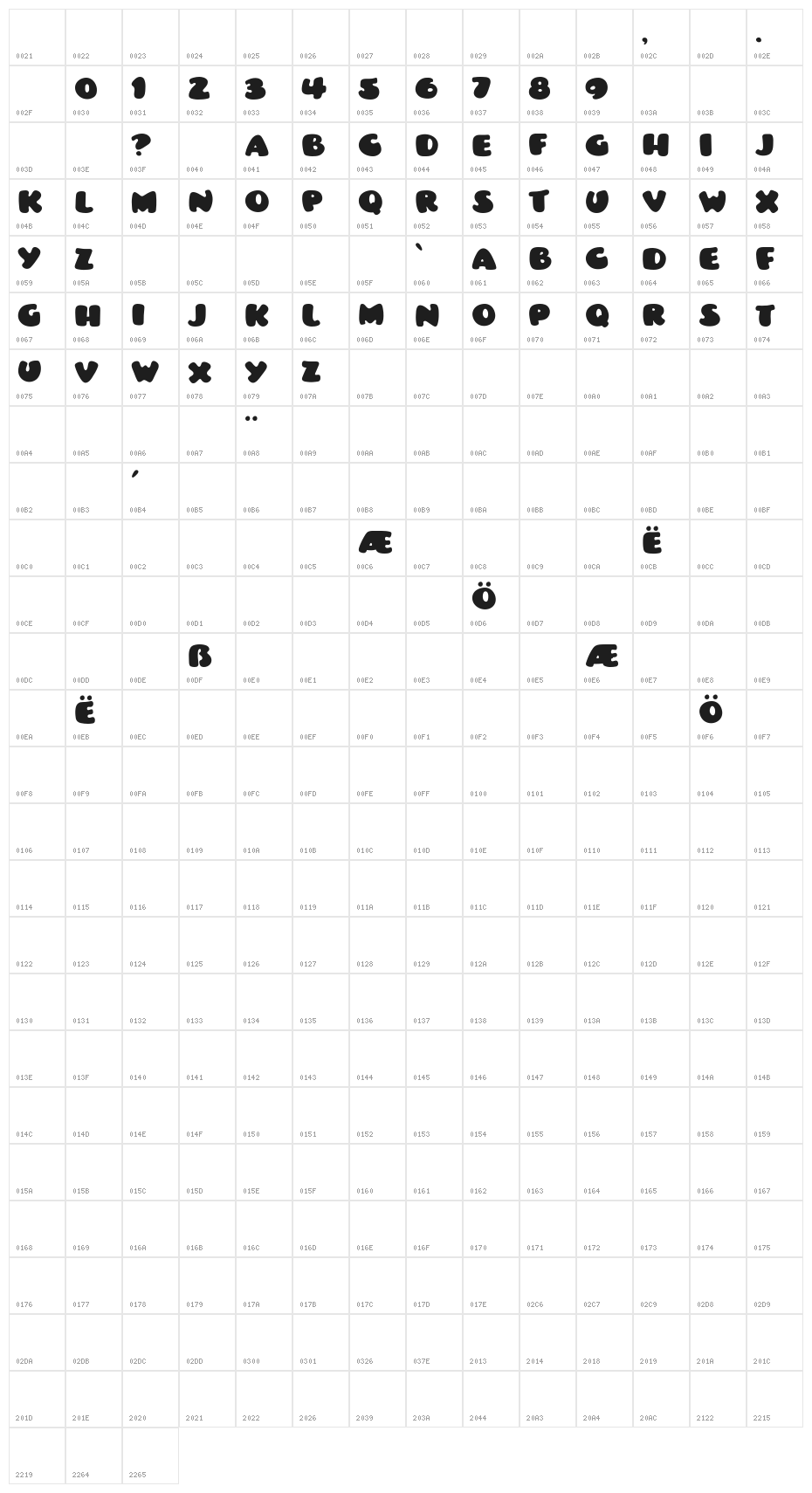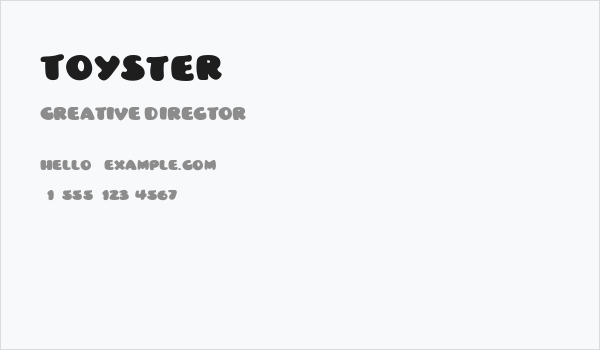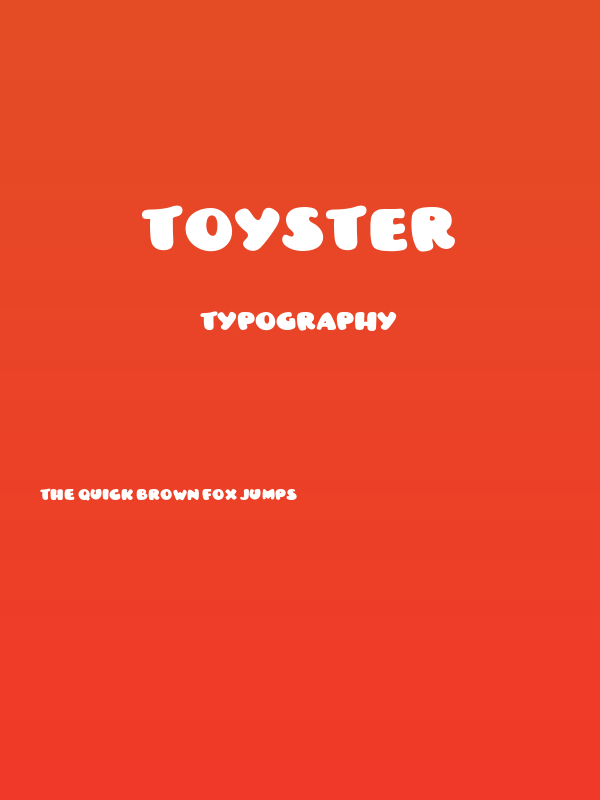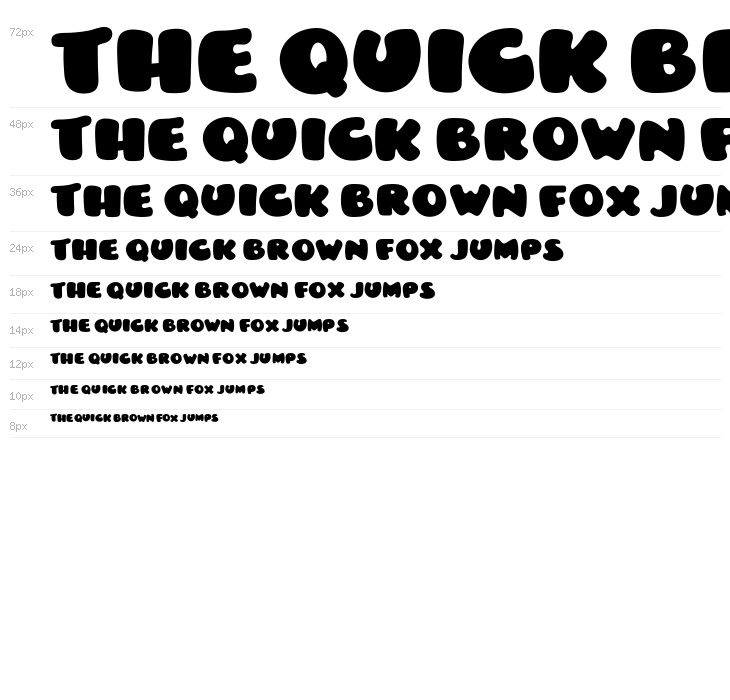
Toyster Font
Toyster Description
This playful and bold font features rounded, bubbly characters that exude a sense of fun and whimsy. The thick strokes and soft edges give it a friendly and approachable appearance, making it ideal for designs aimed at children or for projects that require a lighthearted touch. The uniformity in stroke width across all characters ensures a cohesive look, while the slightly exaggerated curves add a unique charm. Its boldness ensures readability even at smaller sizes, though it truly shines in larger displays where its distinctive style can be fully appreciated.
| Proposed Projects | Ideal for children's books, toy packaging, playful branding, and event posters. |